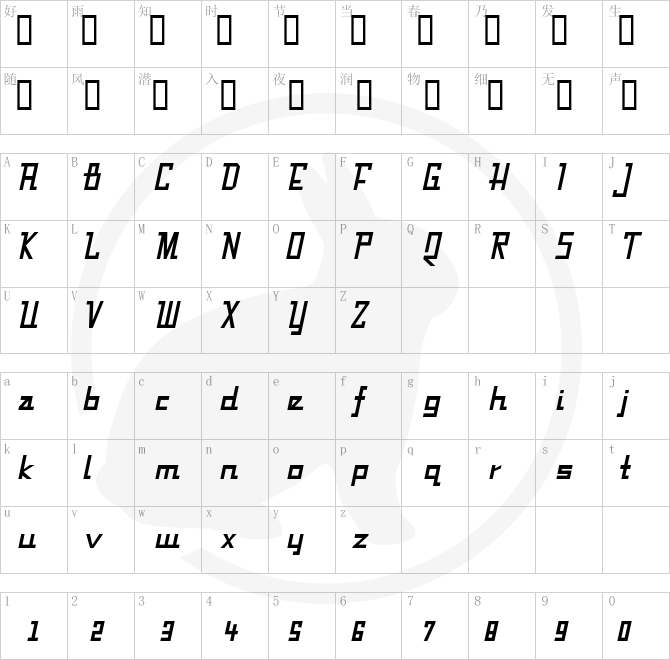
- Font Name:Fabian
Fabian.ttf is a very beautiful artistic font, Fabian.ttf is widely used in the design and printing of various books and pictures,Fabian.ttf has a strong visual impact,Fabian.ttf is a commonly used font in newspapers, magazines and books, and is used in posters, e-commerce Poster design, store design, logo design, font design and other fields.Fabian.